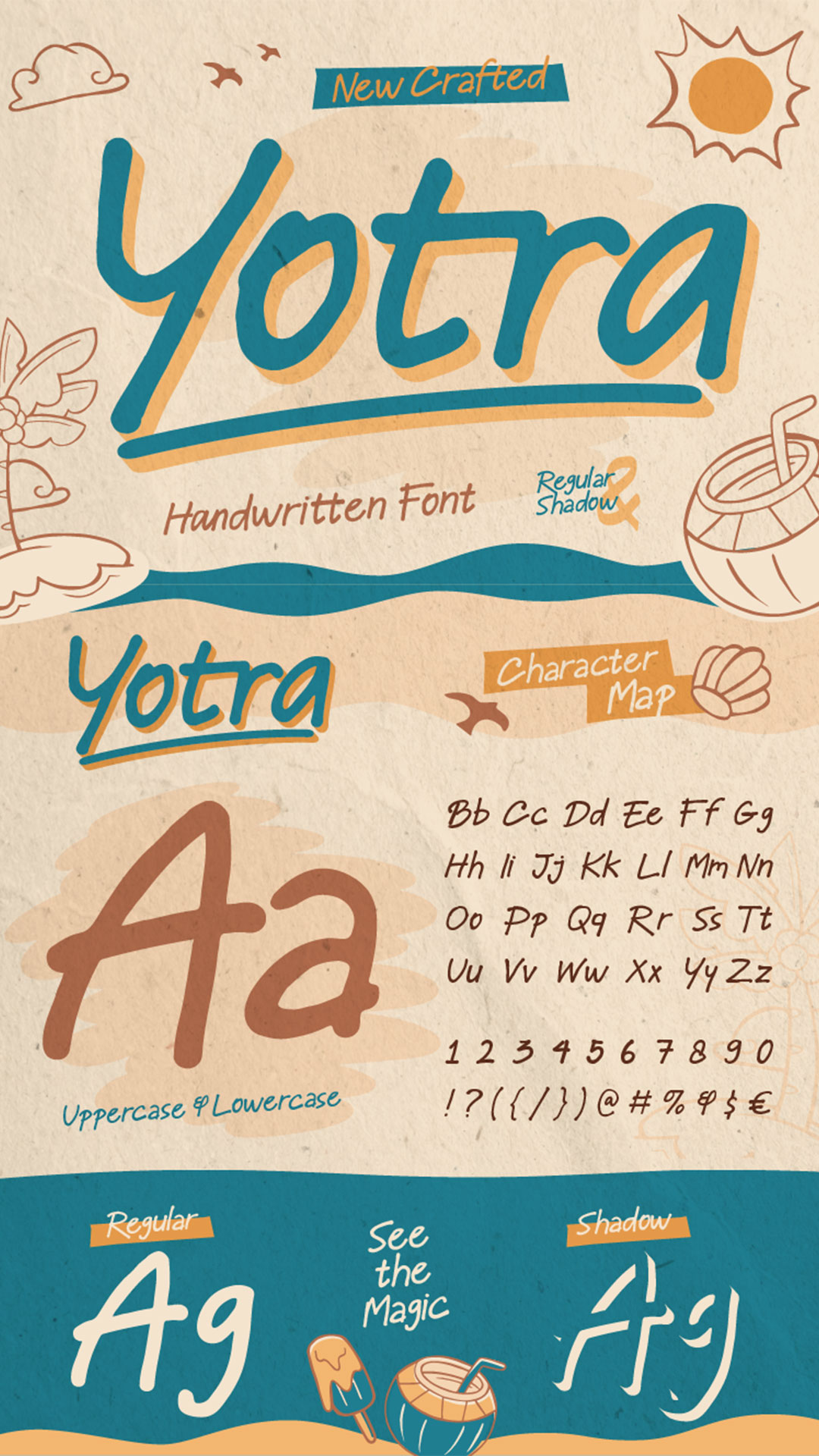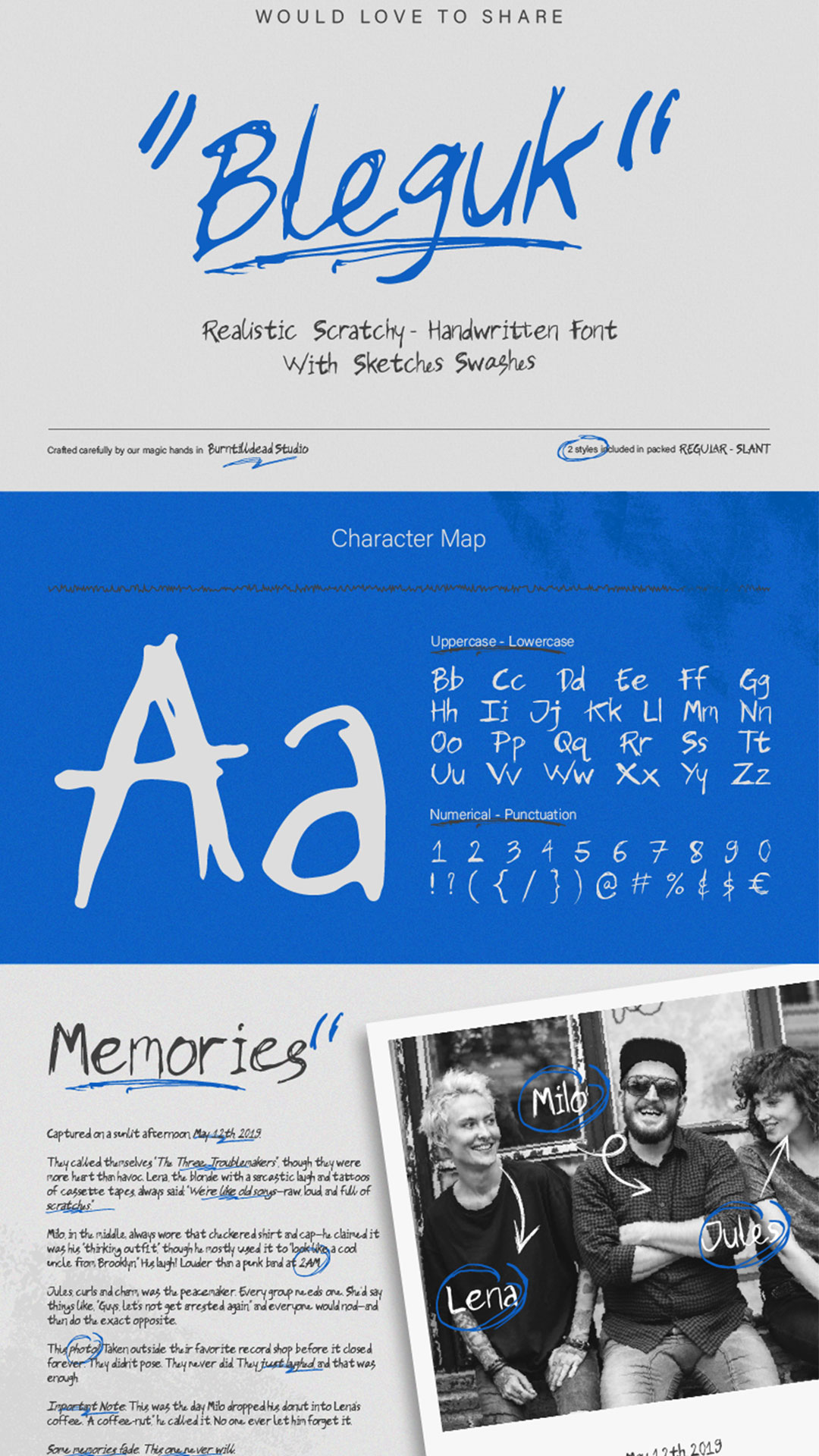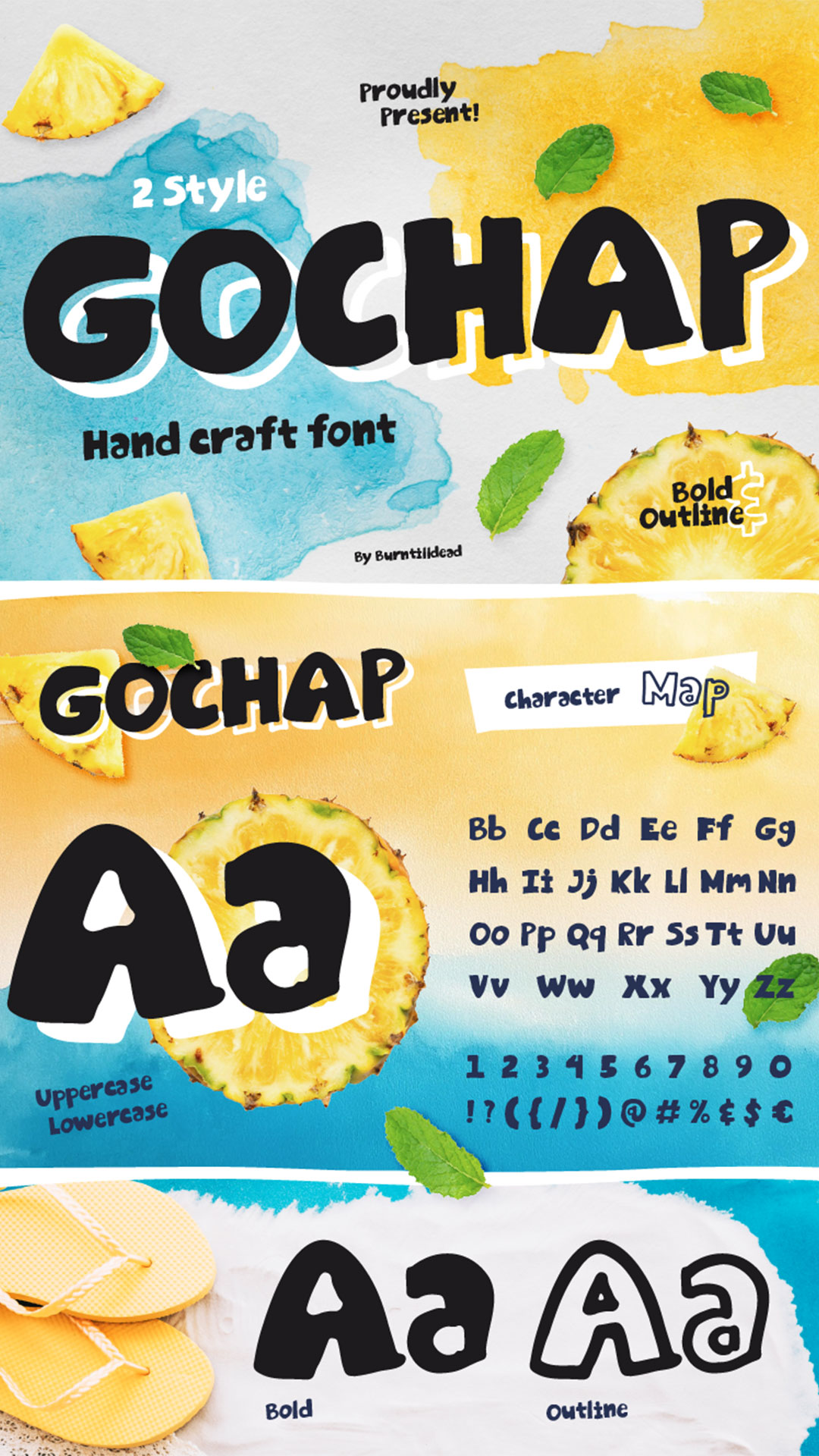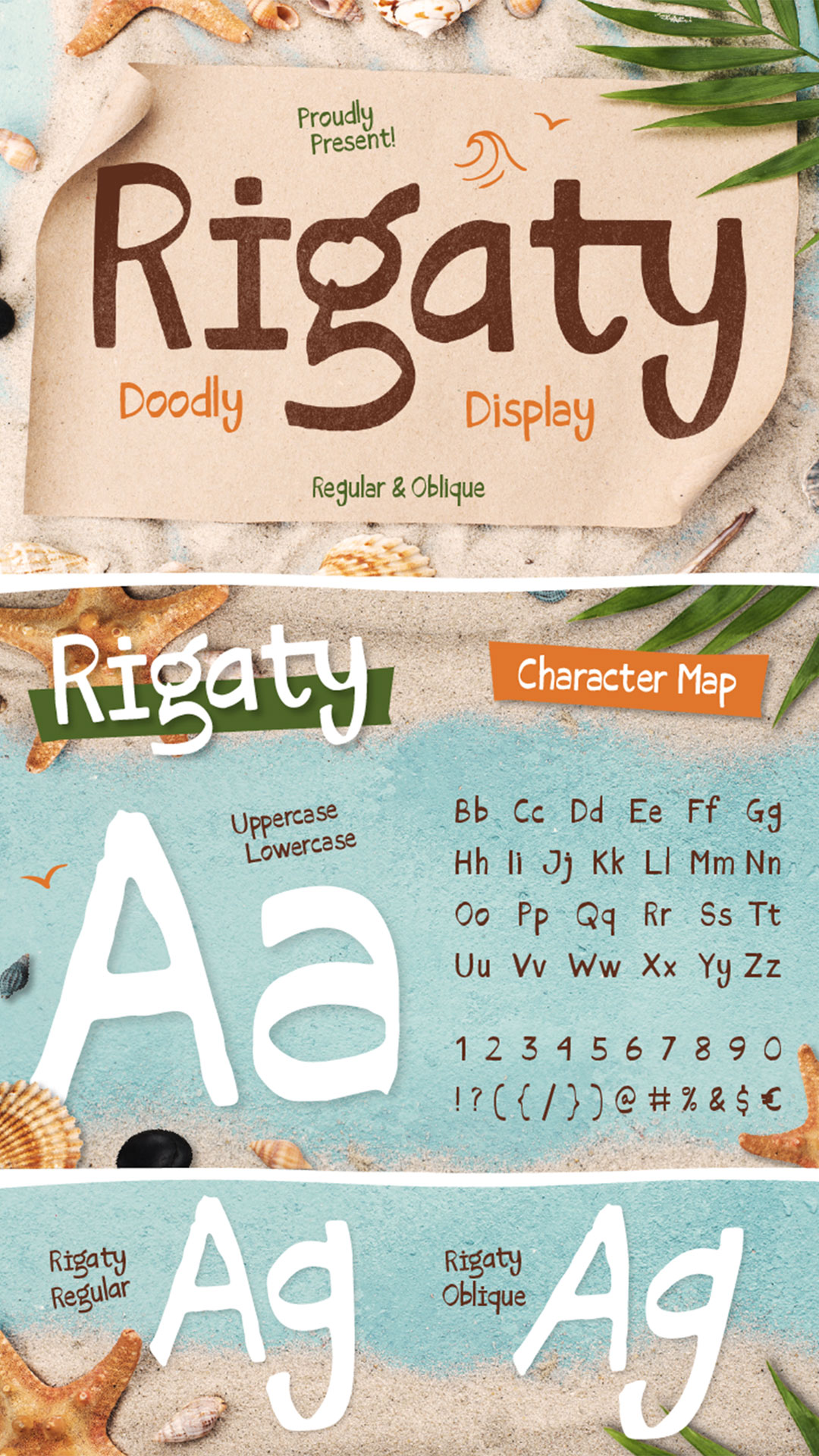
Handwritten fonts especially the messy, imperfect ones are taking over the design world. From social media graphics to product packaging, these fonts add a personal, human touch that clean, digital typefaces often lack. But why are they so popular right now? And how can you use them effectively in your projects?
In this article, we’ll explore why messy handwritten fonts are trending, 5 best Burntilldead messy handwritten fonts to try and Tips for using them like a pro. So, let’s dive in!
1. Authenticity Wins
In a world full of polished digital content, people crave realness. Messy handwritten fonts mimic natural handwriting complete with imperfections making designs feel more personal and relatable.
2. Perfect for Social Media
Platforms like Instagram and TikTok thrive on casual, engaging content. A bold, handwritten font can make a post stand out in a sea of generic text.
3. Versatile Styling
These fonts work for:
4. The “DIY” Aesthetic Trend
The rise of handmade and artisan aesthetics in design (think kraft paper, brush strokes, and doodles) pairs perfectly with messy handwritten fonts.
An artsy, chaotic handwritten font with a raw and sketchy vibe. This font has a strong and unique personality that stands out in any design. It’s loud, expressive, and full of character, like scribbles on a journal or messy sketches on a creative wall full of stories.
The scratchy texture gives it that real, handmade feel, like using a marker or pen on random paper. Bleguk comes in 2 styles: Regular and Slant, so you can mix things up depending on your vibe.
What makes it even more fun? Bleguk includes a sketches & swashes graphic set to boost the playful energy and support your design flow.
Perfect for indie/punk music posters, visual journaling, digital collages or scrapbooks, book covers, IG stories, or anything with a storytelling vibe.
A handcrafted font with a playful crayon-marker style—that’s exactly what makes it so charming! Gochap brings a bold personality and eye-catching vibe to your designs. It comes in two fun styles: Bold and Outline, making it even more exciting to experiment with.
Now that summer’s here, this font is perfect for adding that sunny, cheerful touch to your projects! Whether you’re working on posters, snack packaging, kids’ branding, social media posts, or anything that needs a fun and energetic twist.
A doodle display font with a playful vibe, a touch of cuteness, and a whole lot of character. It’s a handmade font with quirky, irregular shapes — and that’s exactly what makes it so charming!
Rigaty comes in two styles: Regular & Oblique, perfect for fun and relaxed design projects that feel personal and approachable. Whether you’re crafting summer-themed posters, playful packaging, children’s books, or cheerful quote graphics, Rigaty brings a burst of personality into your work.
With its spontaneous hand-drawn look, Rigaty captures the carefree feeling of beach days, doodles on paper, and a splash of creativity. It’s the ideal choice for any project that wants to feel fun, friendly, and full of life!
A fun and expressive handwritten font that brings a fresh breeze of creativity into design. This font comes with 4 playful sytles: regular, shadow, graphic regular and grahic shadow. Each style is crafted to maintain a casual, handcrafted feel while ensuring legibility and visual charm. Yotra’s slightly messy yet balanced strokes create a lively and humanistic rhythm—making it perfect for posters, packaging, quotes, children’s books, summer-themed projects, and anything that needs a touch of fun.
Messy handwritten fonts are here to stay—they bring warmth, personality, and creativity to any design. The key is to use them strategically so they enhance (not overwhelm) your work.